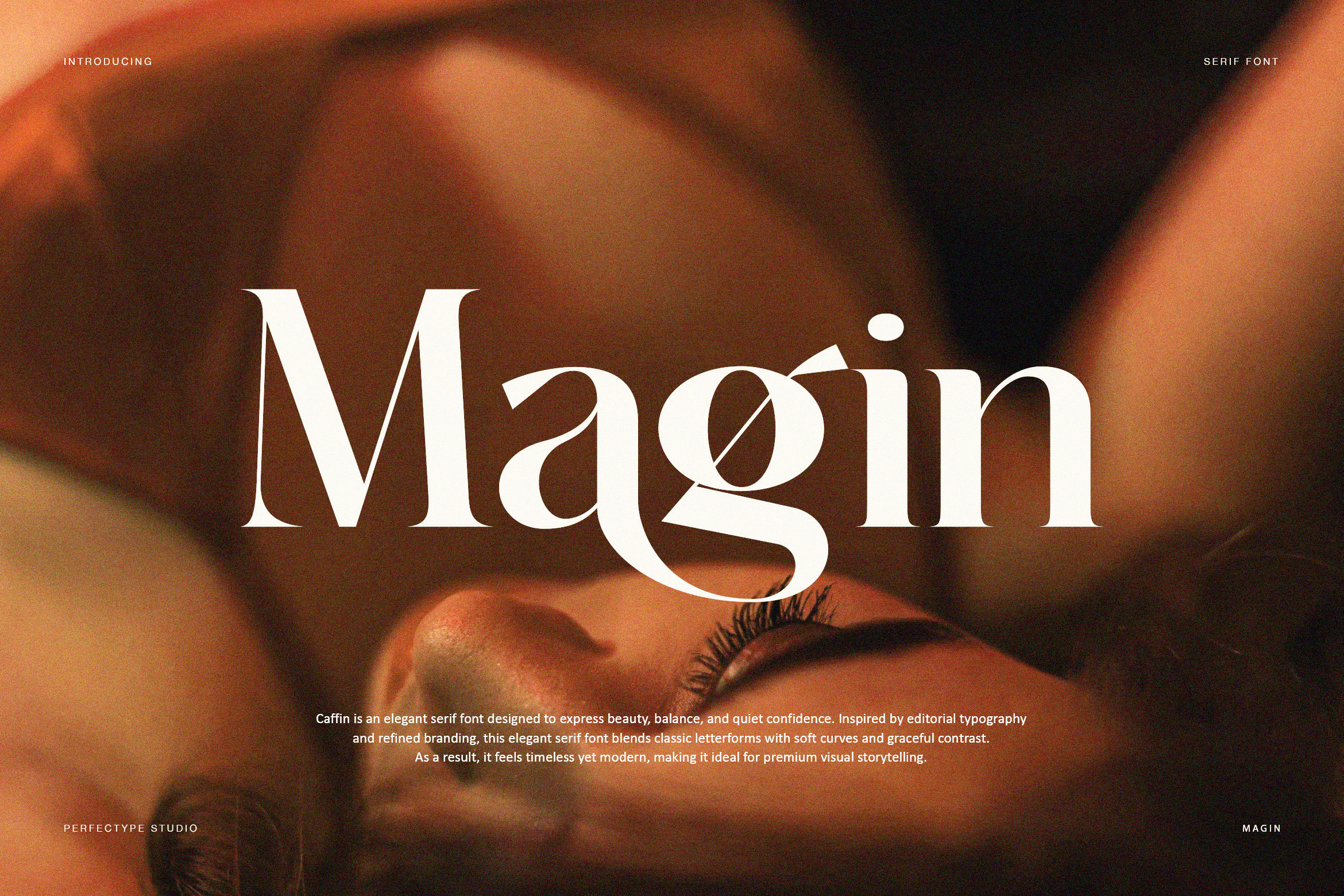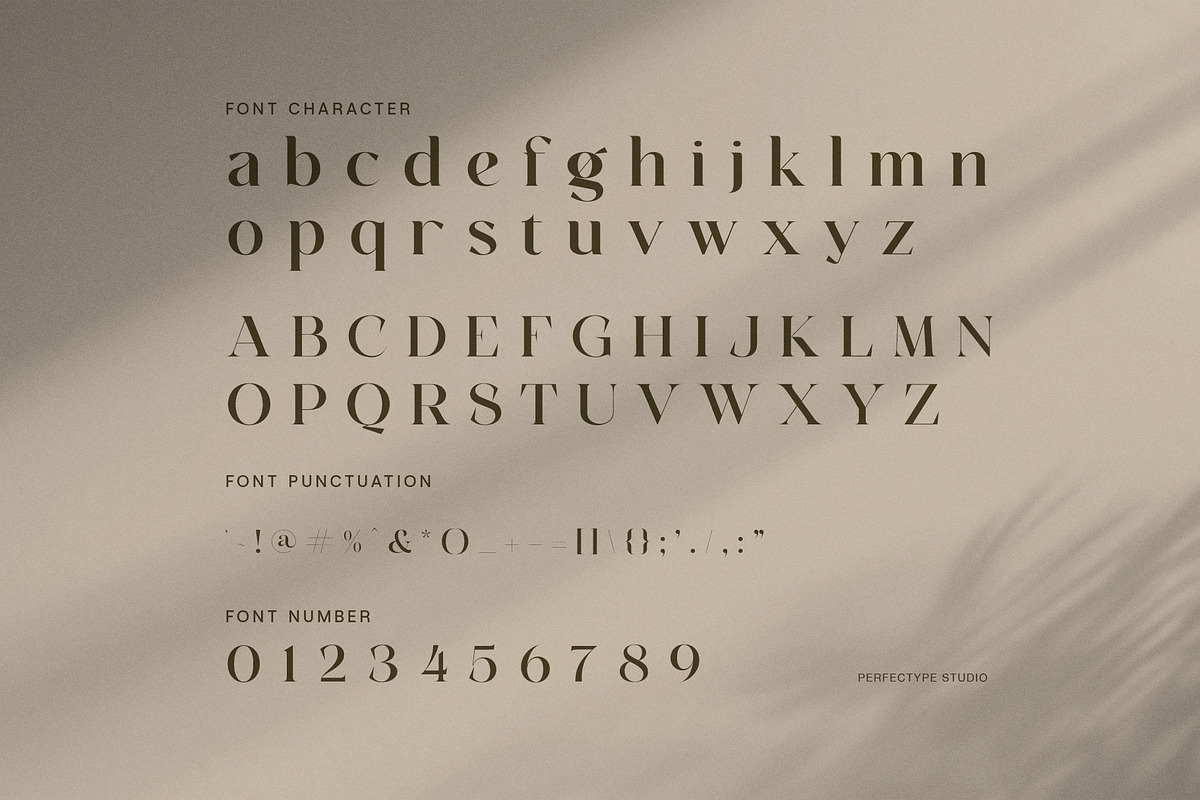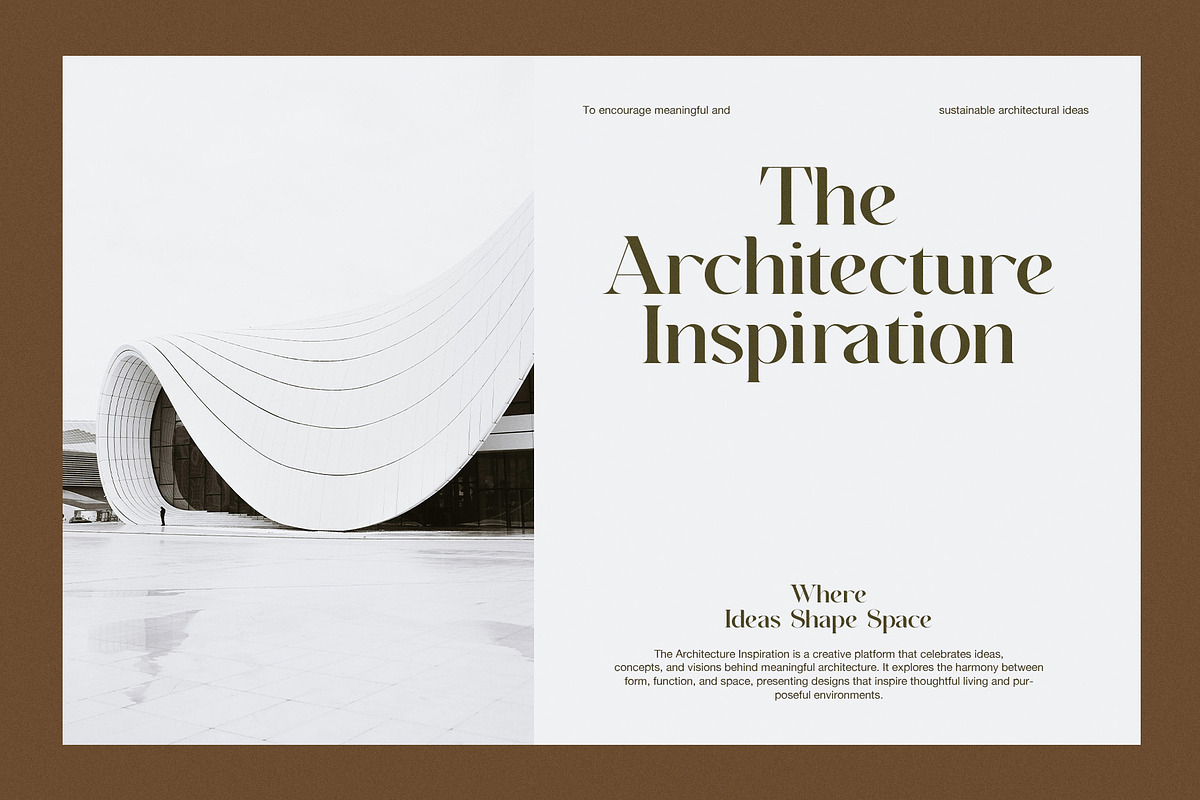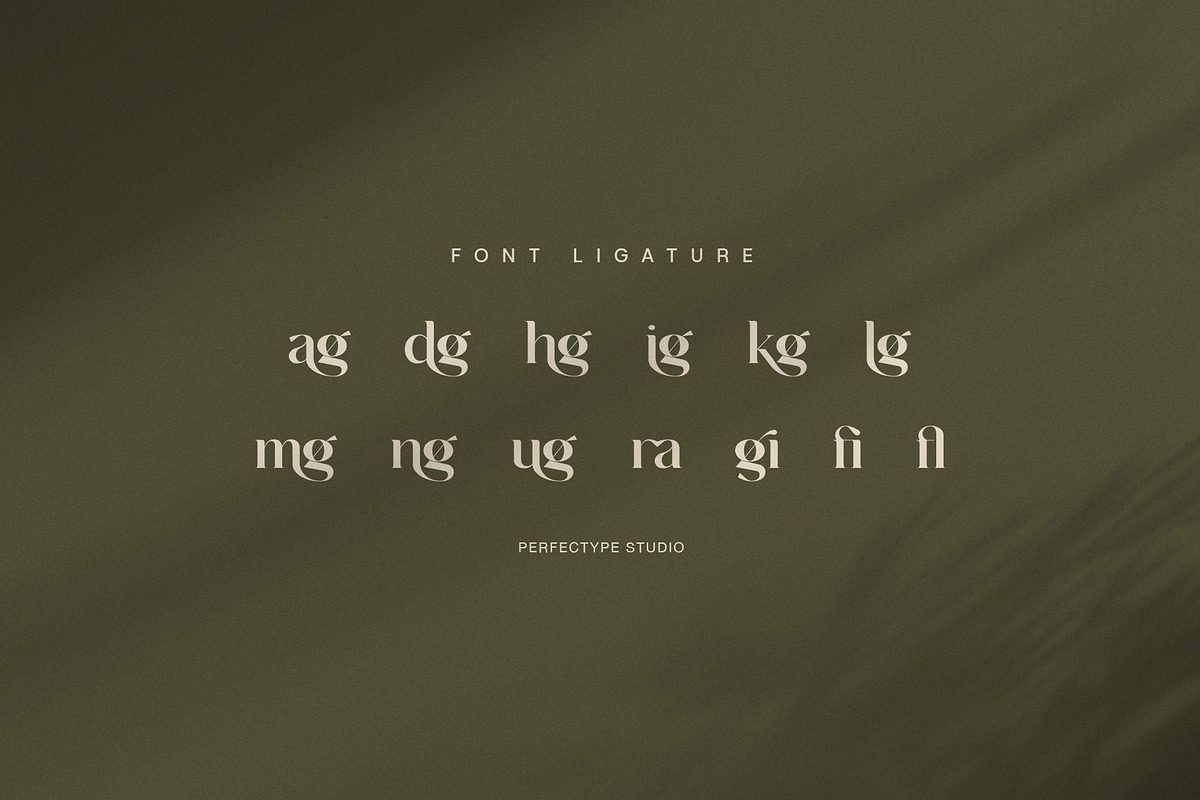
Magin Elegant Serif Font
Magin is an elegant serif font created to express calm beauty, balance, and refined clarity. Inspired by editorial typography and natural forms, Magin blends classic serif structure with soft curves and gentle contrast. As a result, it delivers a timeless look that feels modern, warm, and thoughtful.
Moreover, Magin features carefully crafted letterforms that feel smooth and organic. Because of this, headlines appear confident while still remaining approachable. At the same time, the font maintains strong readability, which allows it to work well across both print and digital layouts. Therefore, designers can use Magin for storytelling without visual tension.
In addition, Magin includes elegant ligatures that improve rhythm and flow in text. These ligatures help words feel connected and refined, especially in editorial titles and brand names. Furthermore, the balanced uppercase and soft lowercase characters create harmony across layouts of any size.
Magin suits a wide range of creative industries. For example, it works beautifully for botanical branding, skincare packaging, fashion collections, architecture studios, and photography portfolios. It also performs well in magazines, lifestyle websites, art books, and minimalist presentations. Because the contrast stays gentle, designs feel calm, premium, and meaningful.
Why designers choose Magin
Magin helps brands communicate elegance with intention. It supports visual storytelling while keeping layouts clean and comfortable to read.
Key features and benefits:
Elegant serif design with organic curves
Soft contrast for a calm visual tone
Refined ligatures for smooth typography
Strong uppercase for editorial headlines
Balanced lowercase for longer reading
Clear numerals and punctuation
Suitable for print and digital use
Overall, Magin is an elegant serif font that connects nature, design, and modern creativity. It allows designers to create visuals that feel honest, refined, and lasting.